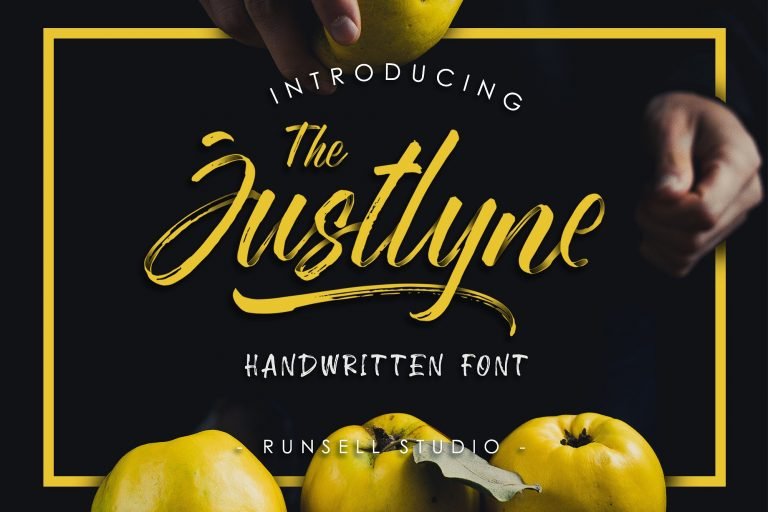
Justlyne Brush Font
Introducing Justlyne Font. It is a modern and creative brush, which will make your design impressive with customers. Justlyne font created with creative hand with given natural teksture make brush pen. This font is always exciting to design you create. Justlyne is a handwritten font that suits your needs in designing a logotype, product packaging, posters, image on the website, photo for social media, writing books and etc.